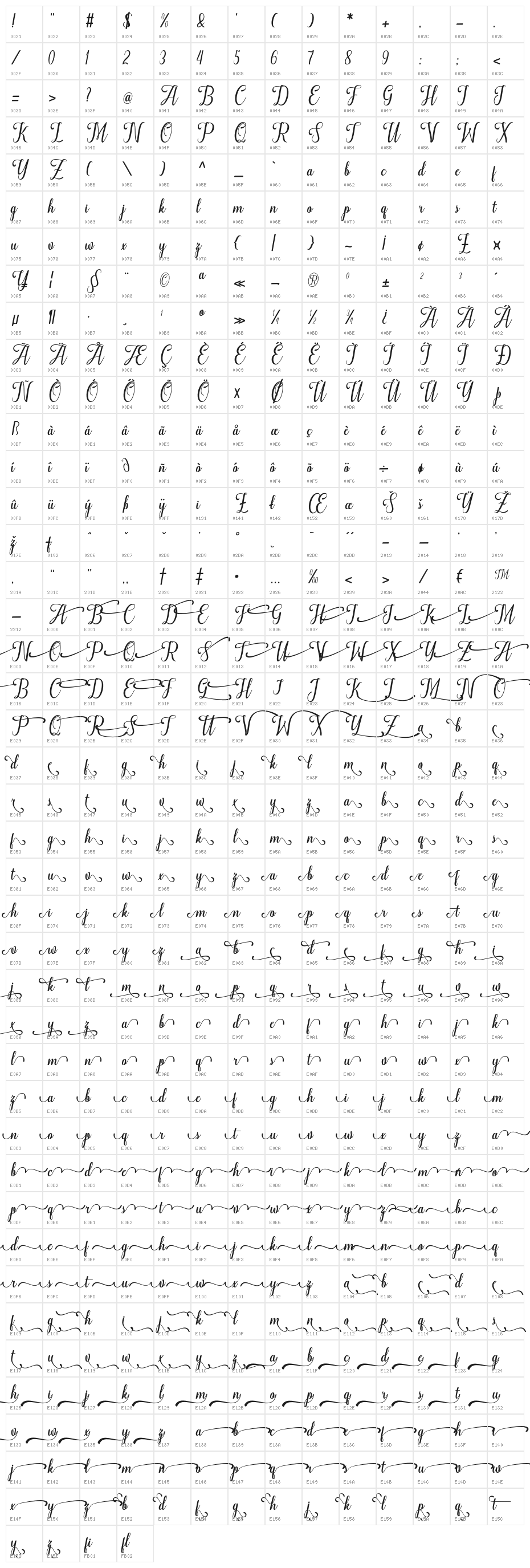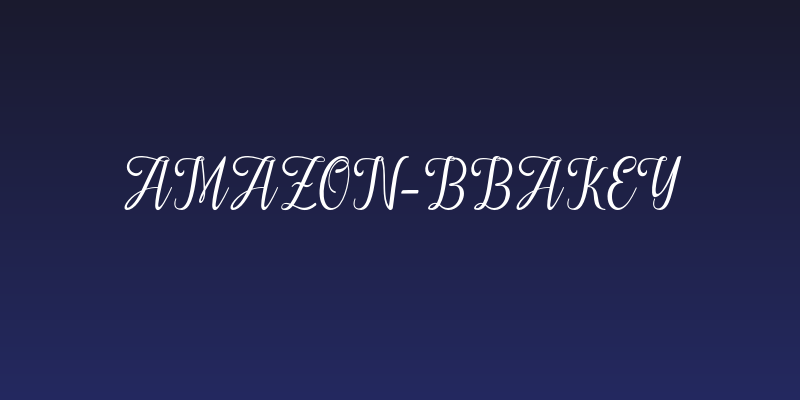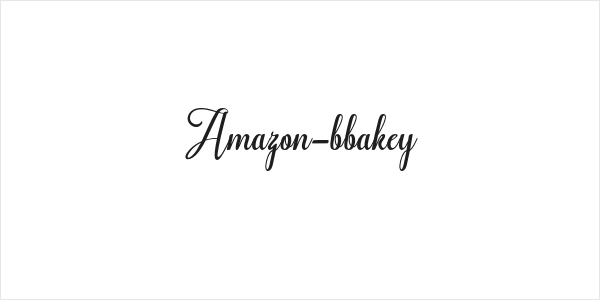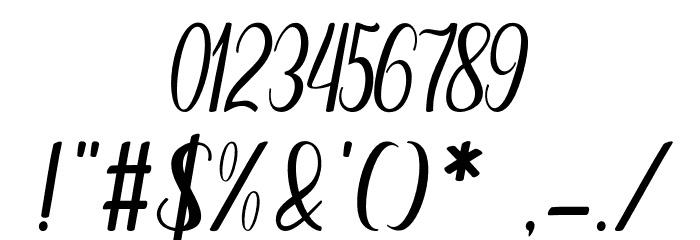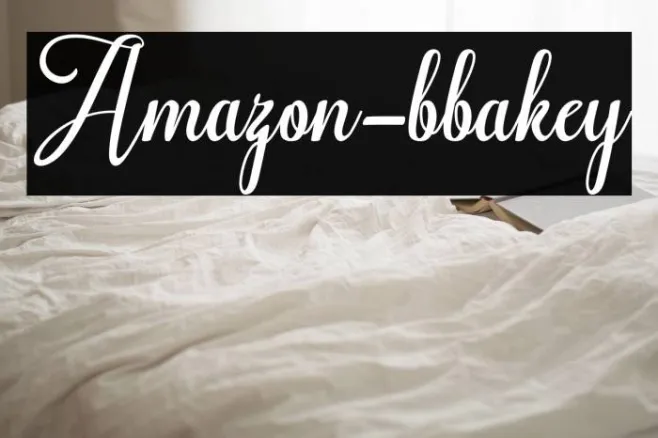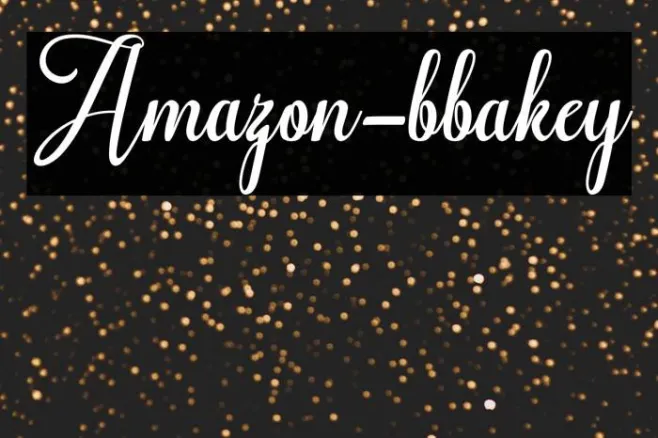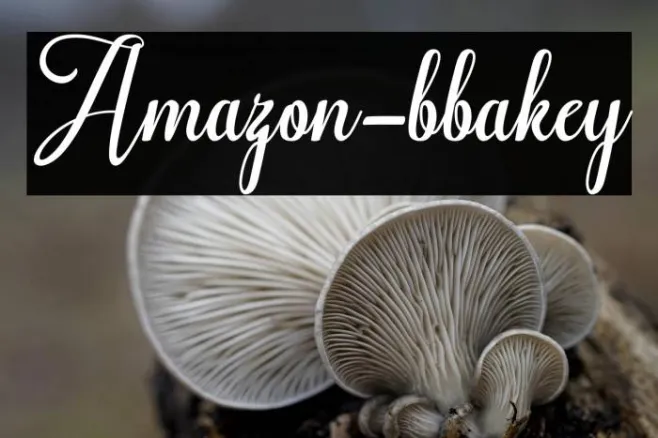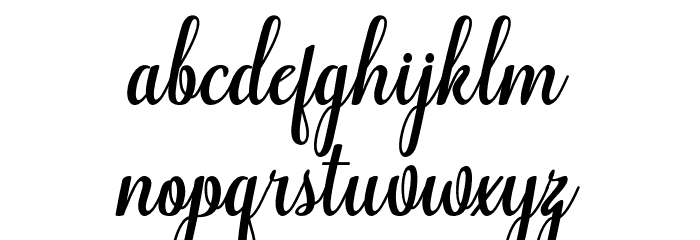
Amazon-bbakey Font
Amazon-bbakey Description
This font features a sophisticated and elegant script style with a flowing, cursive appearance. The uppercase letters are characterized by their graceful loops and swirls, giving them a classic and timeless feel. The lowercase letters maintain a consistent flow, enhancing readability while retaining an artistic flair. The numerals are designed to match the overall style, with subtle curves that complement the letters. Special characters are thoughtfully integrated, maintaining the font's cohesive aesthetic. This font is ideal for projects that require a touch of elegance and sophistication, such as wedding invitations, branding, and high-end product packaging.